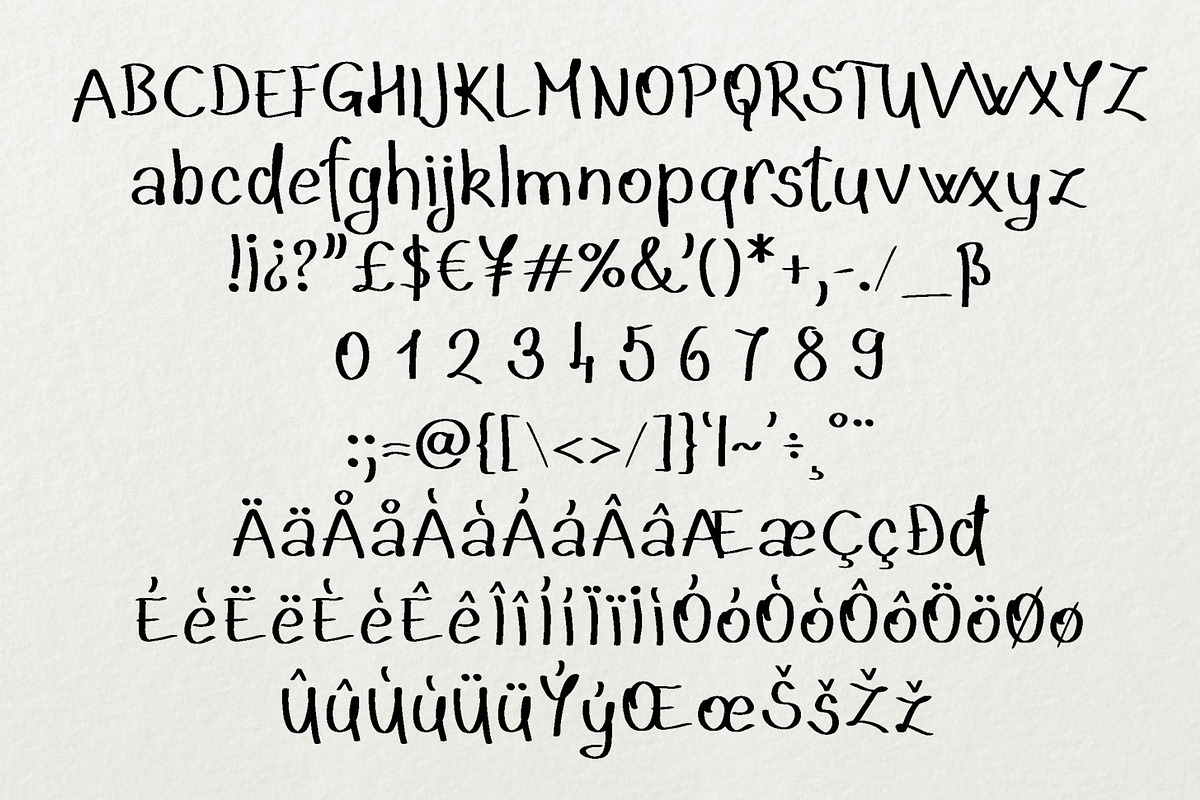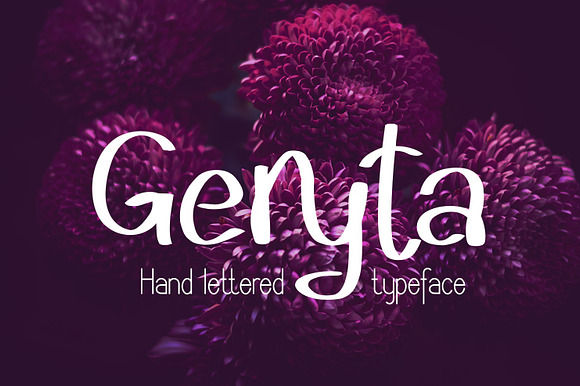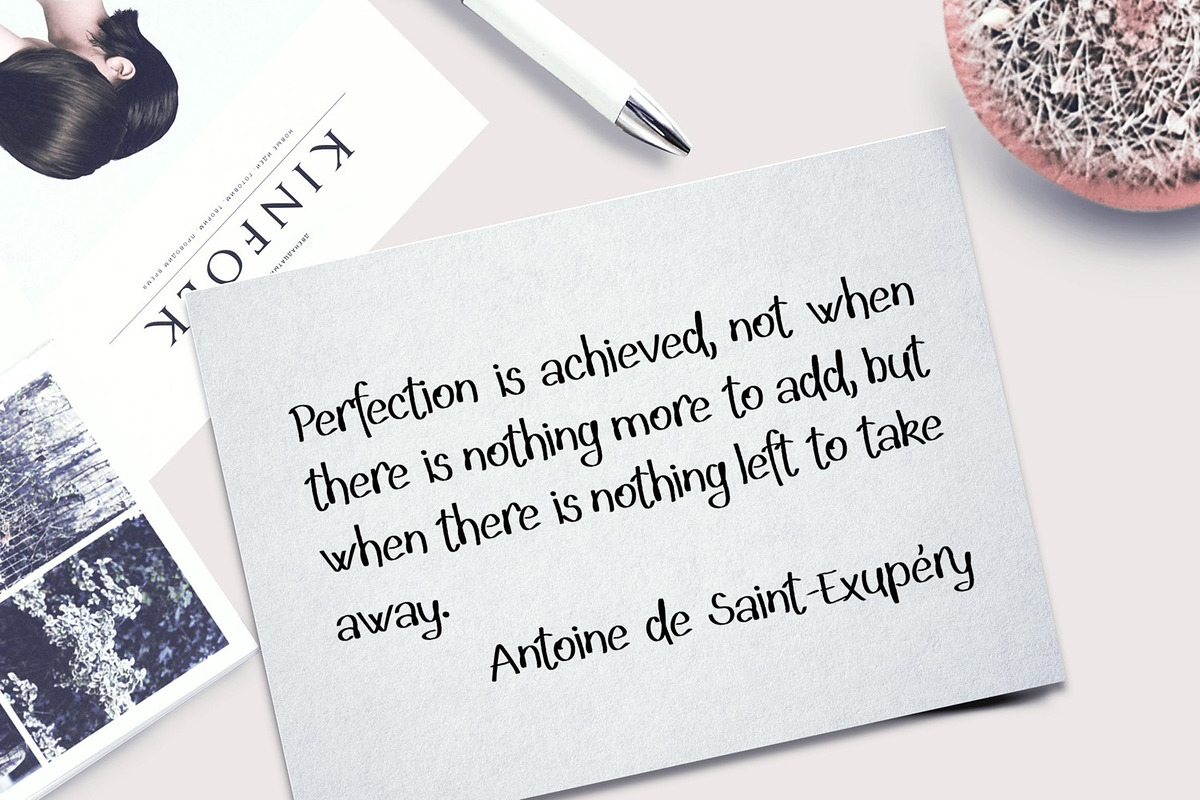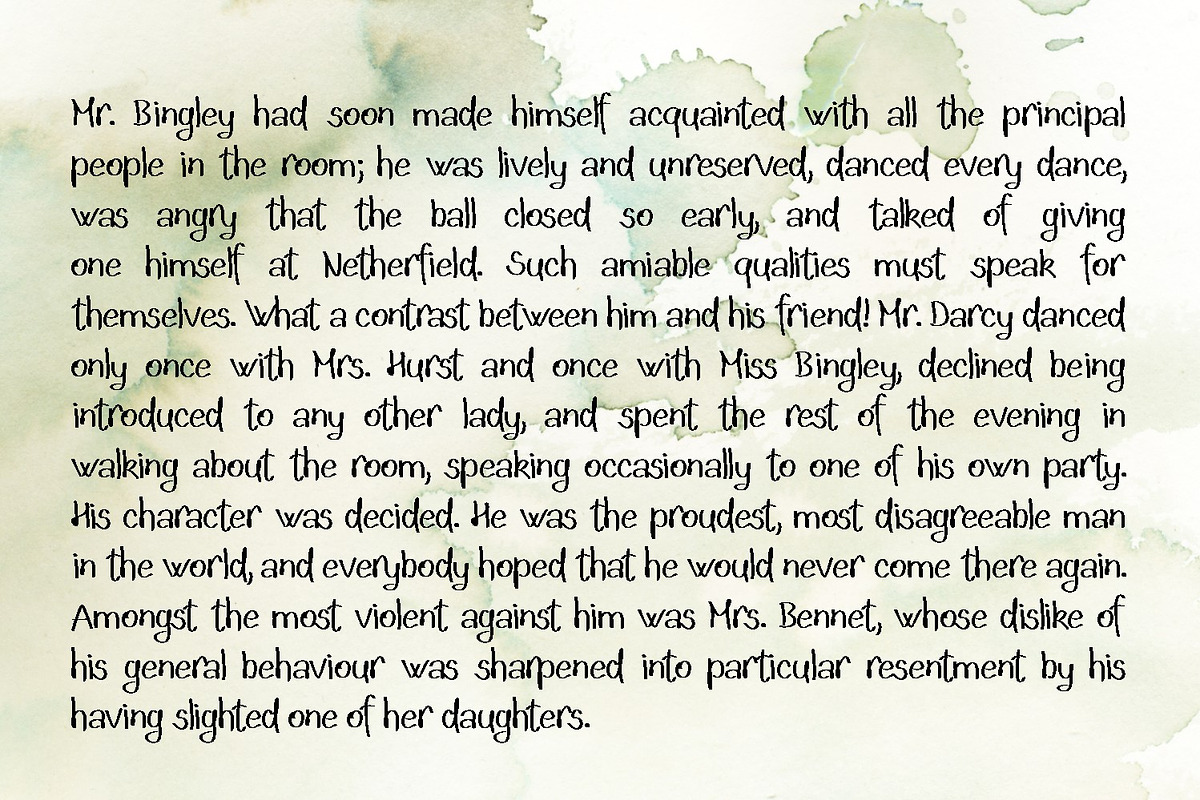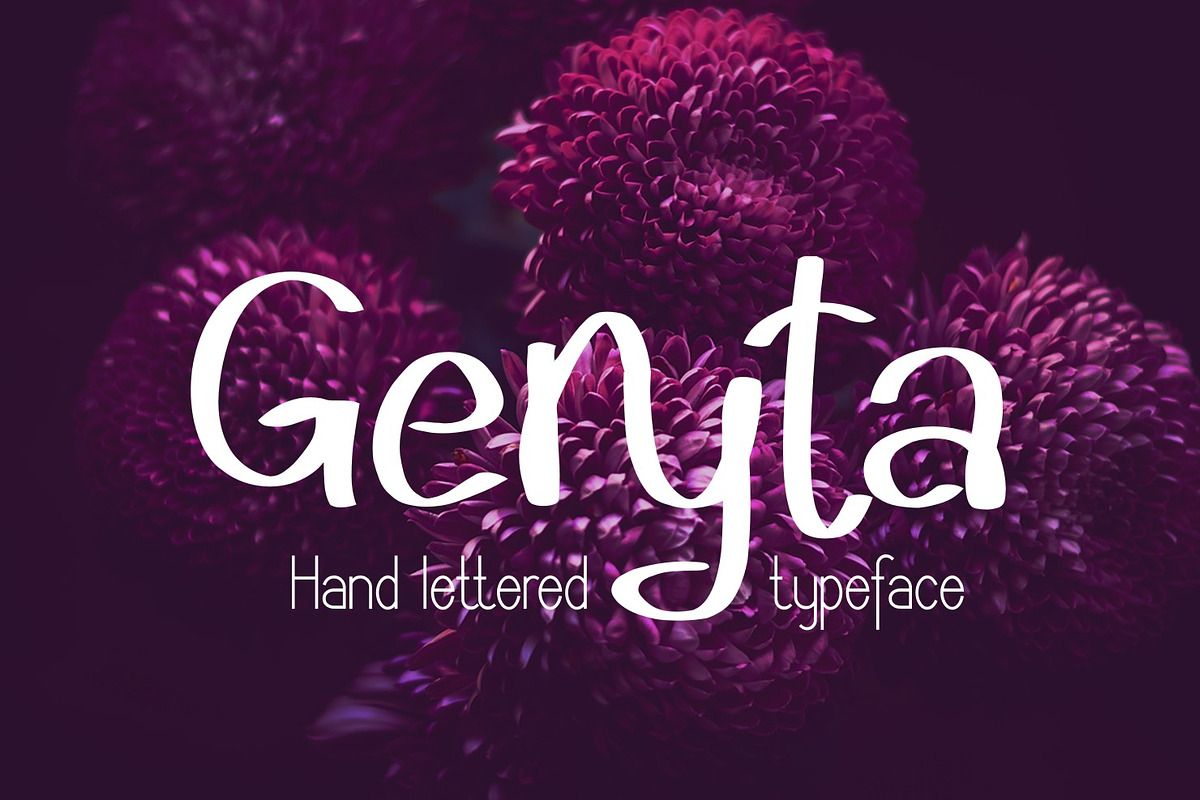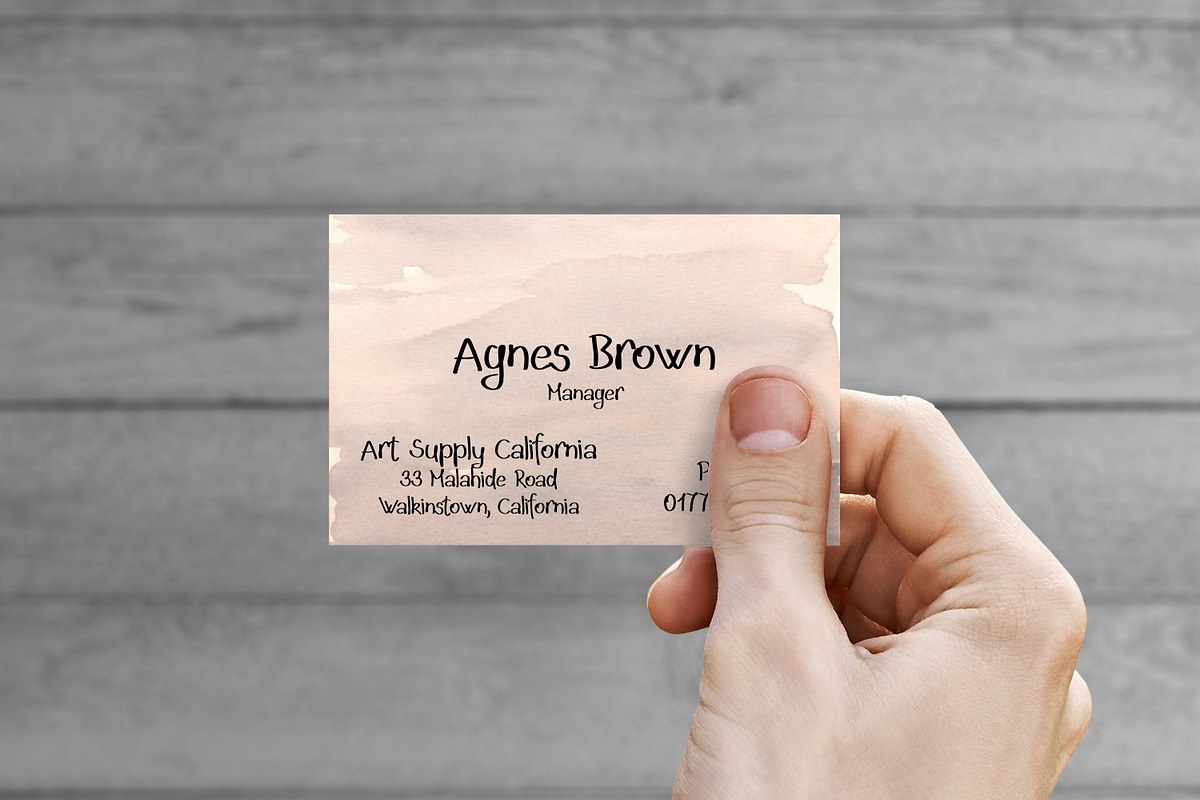
Geryta
Introducing Geryta, a hand lettered typeface.
- Includes a range of multilingual characters.
Geryta by Digital Typeface Studio fits naturally into Branding, posters, packaging, typography.